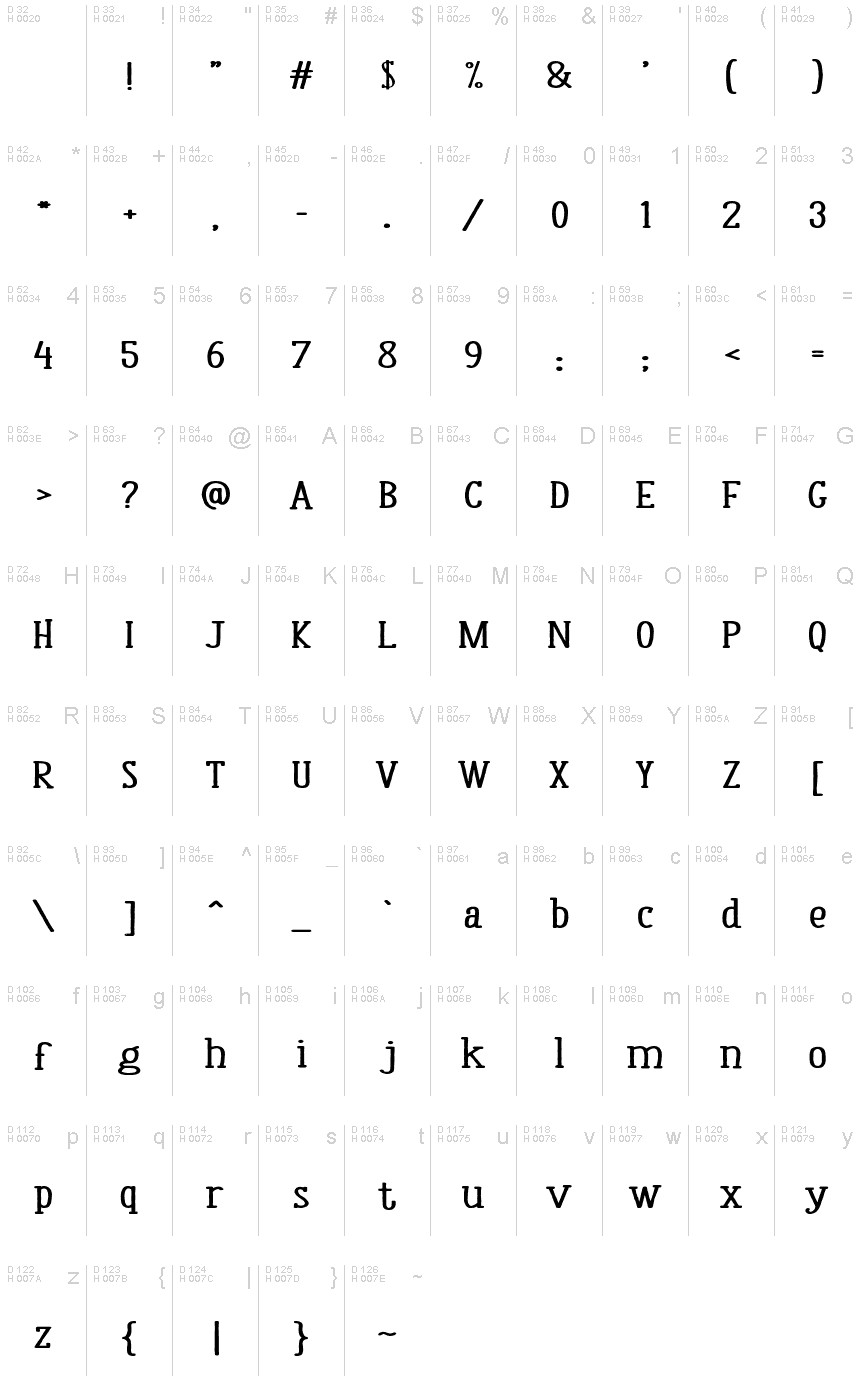
Fontastic Harmony
Fontastic Harmony by Letternun is a playful display font with a semi-light weight and fun serif style. Its unique design is perfect for creative projects such as branding, packaging, or social media graphics. Whether you're creating a quirky advertising campaign or designing an eye-catching website, Fontastic Harmony will add personality and charm to your project. With its distinct character and versatility, this font is sure to bring harmony to any design endeavor.